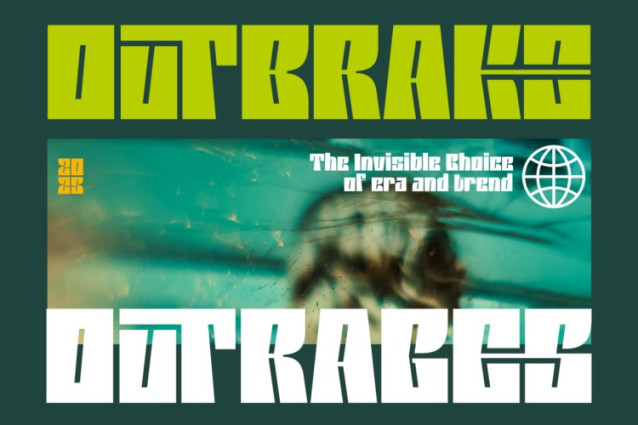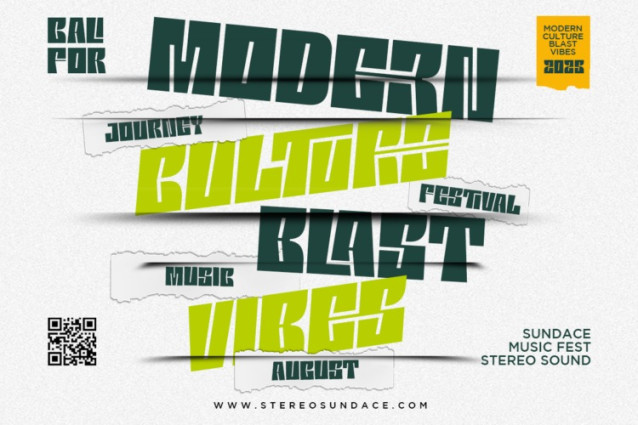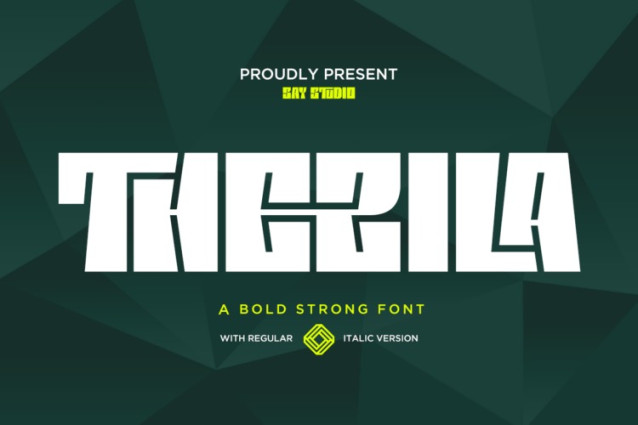
Thezila – Bold Display Typeface Font
Thezila – Bold Display Typeface is a bold strong display font designed to deliver maximum impact with a modern and futuristic edge. Built with sharp angles and powerful geometric structures, this typeface creates a striking visual presence that instantly grabs attention. Its unique character shapes make it perfect for designs that demand strength, confidence, and innovation.